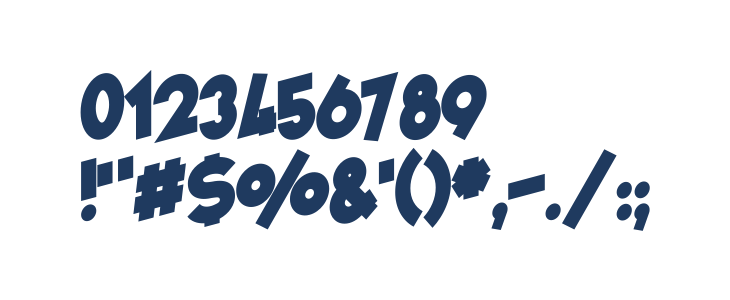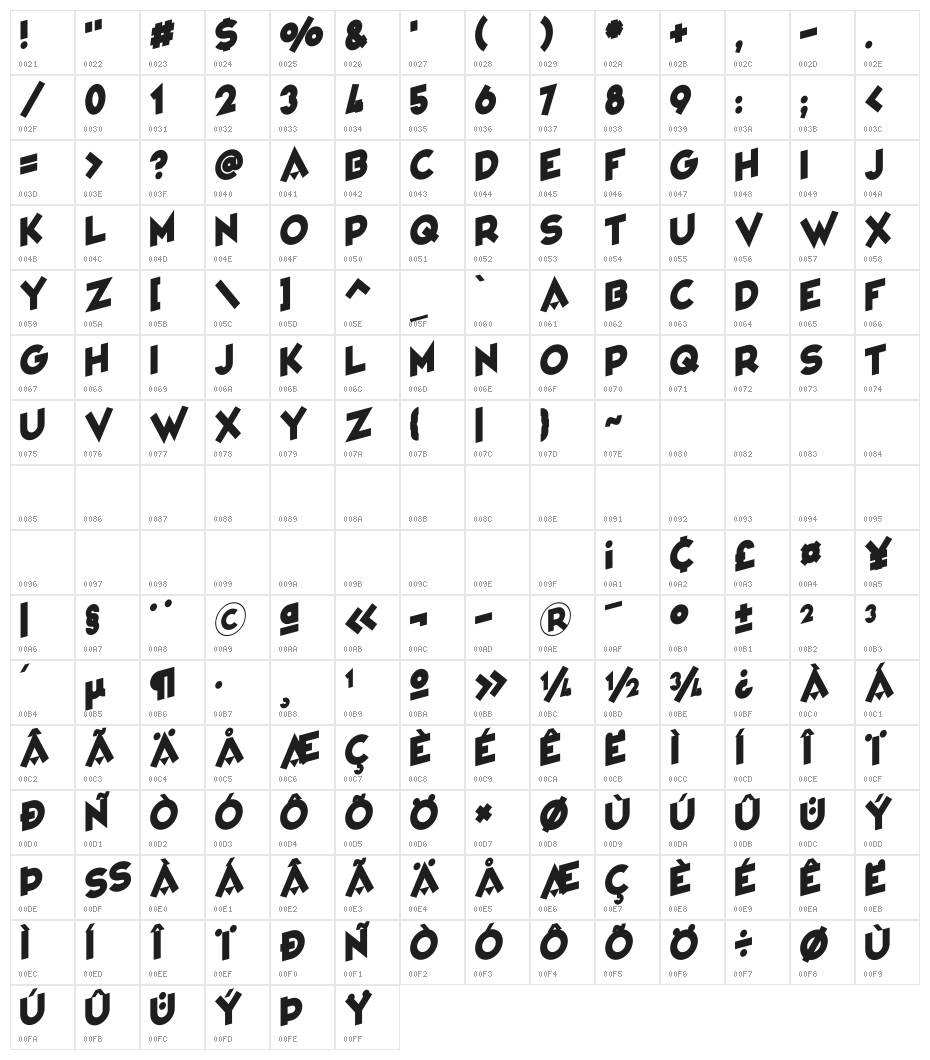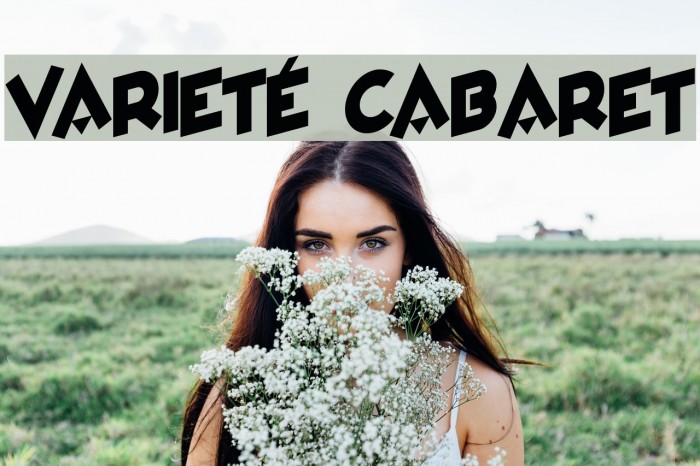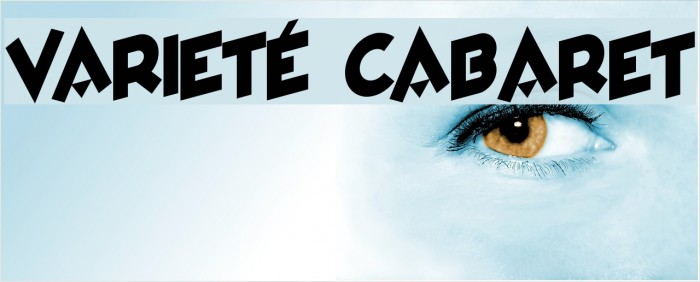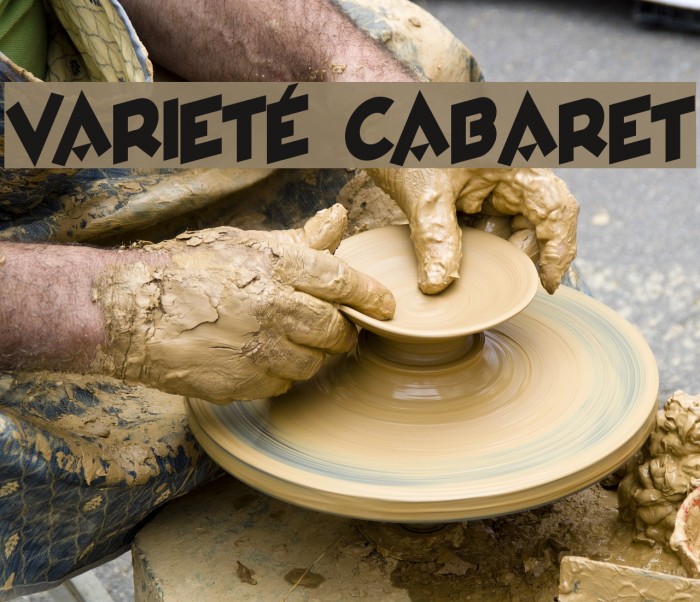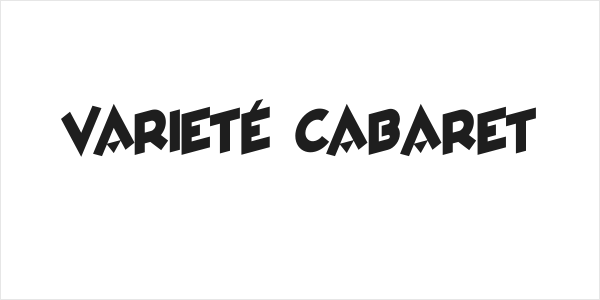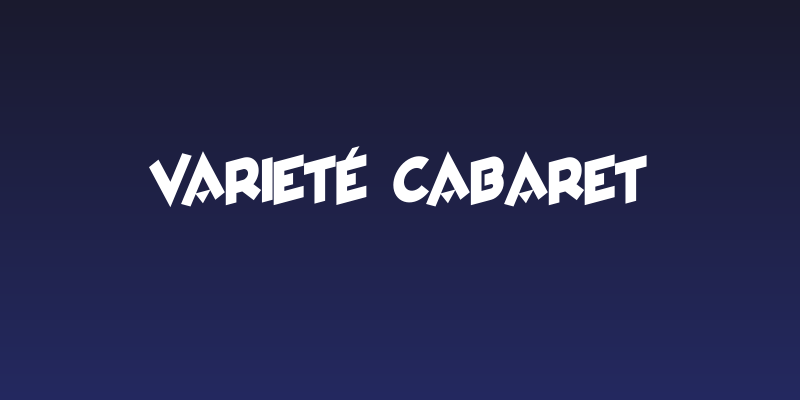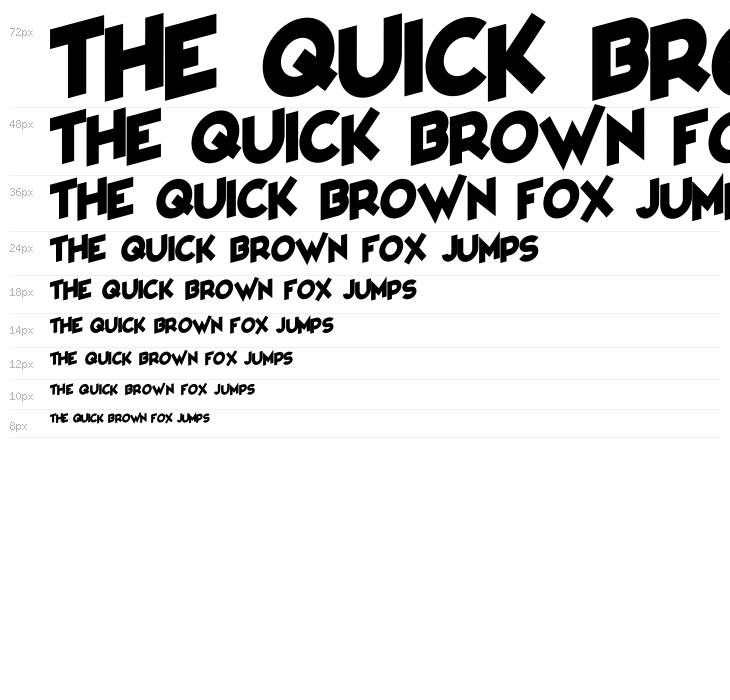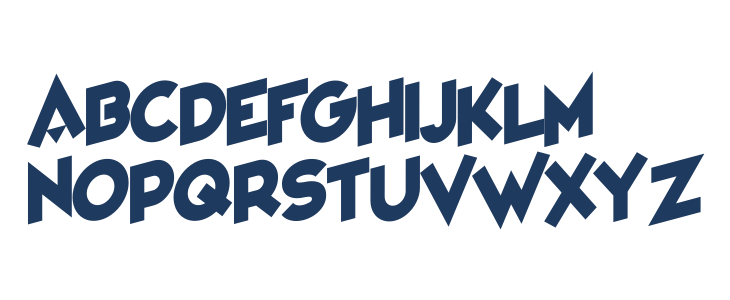
Varieté Cabaret Font
Varieté Cabaret Description
This font features bold, angular characters with a distinct geometric style, reminiscent of art deco design. The uppercase letters are particularly striking, with sharp edges and a sense of movement that suggests dynamism and energy. The numbers and special characters maintain this bold aesthetic, making them highly visible and impactful. The overall appearance is both modern and retro, suitable for capturing attention and conveying a sense of style and flair. The font's unique character shapes make it ideal for creative projects that require a touch of sophistication and boldness.
| Overall Style | Modern, Retro |
| Proposed Projects | Ideal for posters, branding, and any design needing a bold, stylish impact. |